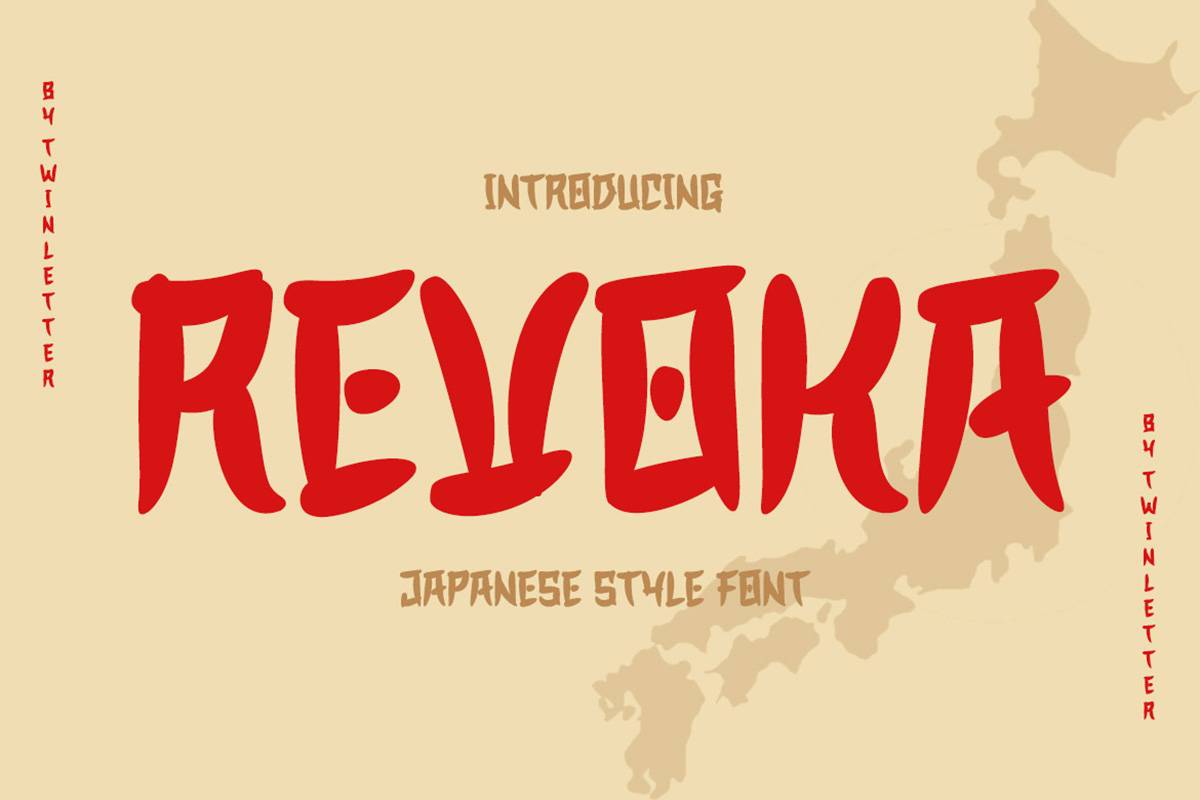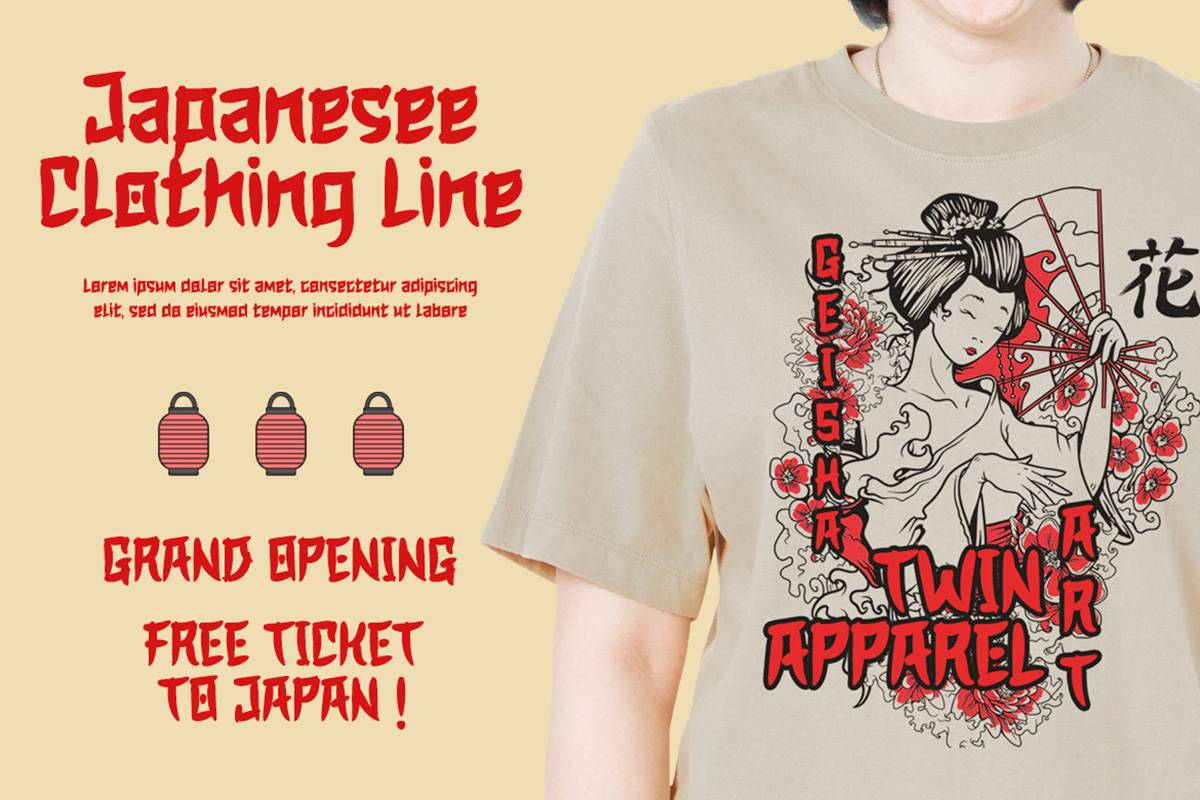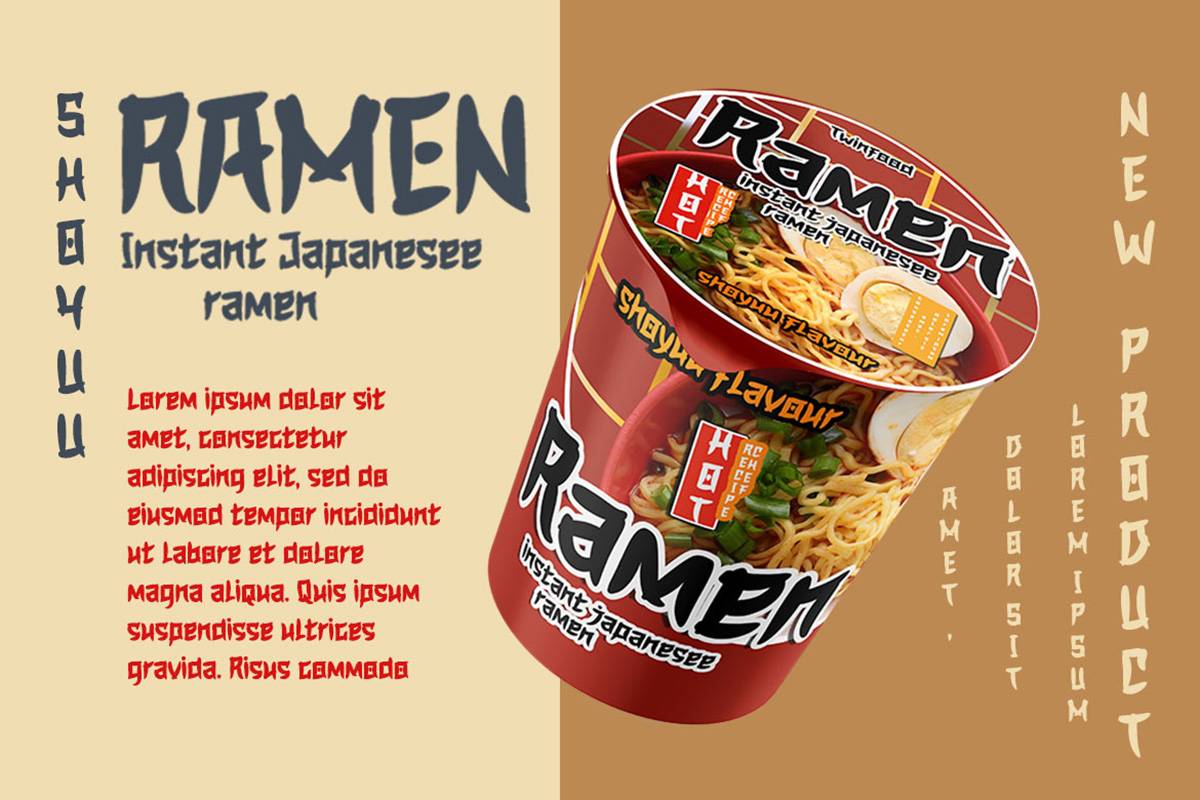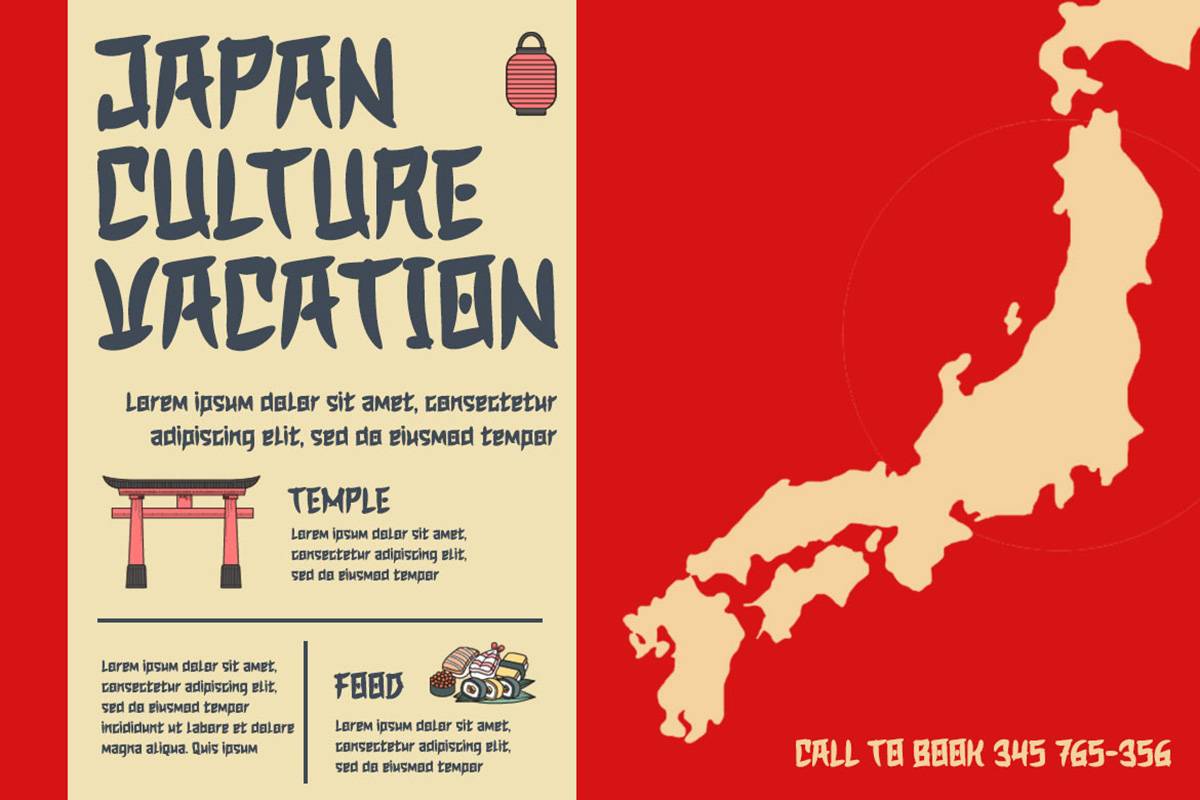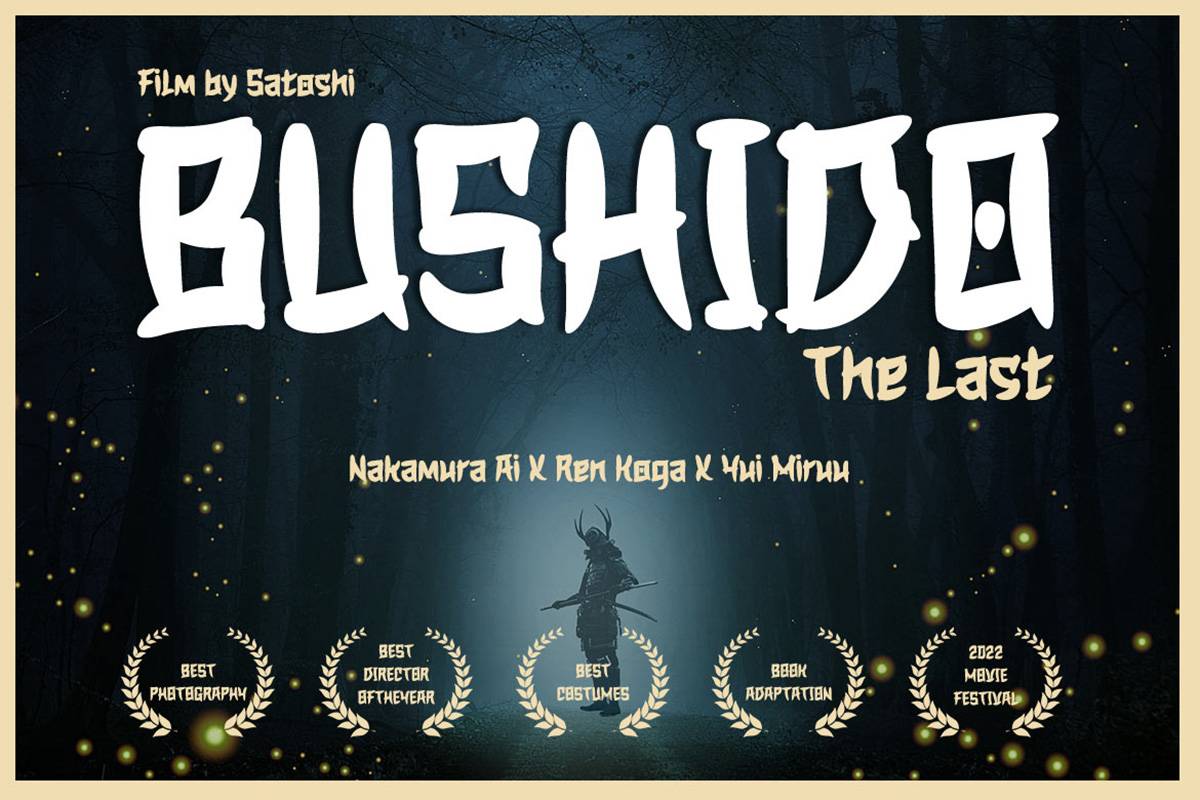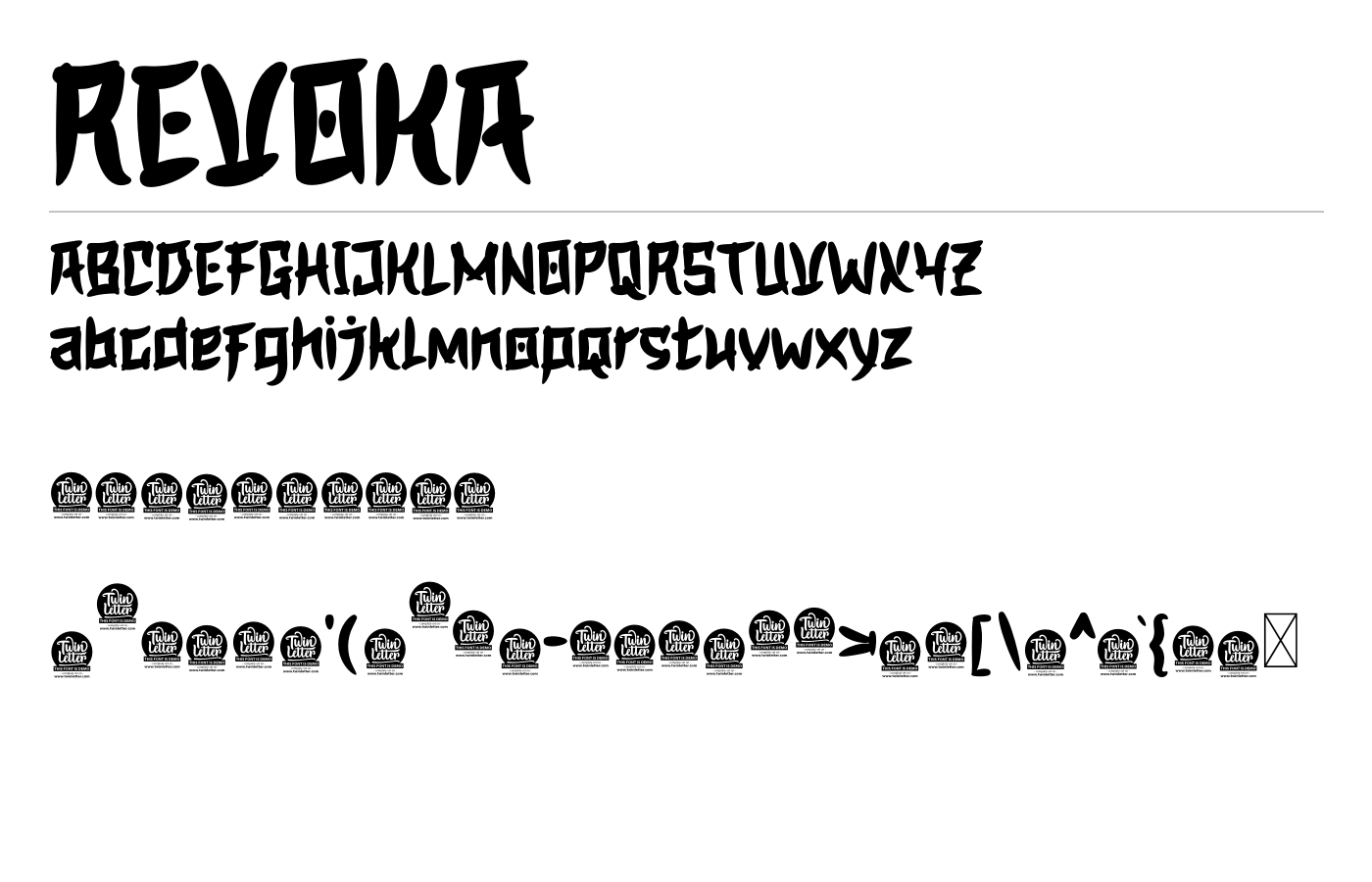
Revoka is a bold, playful handwritten font with a distinctive brushstroke style that combines thick and uneven strokes for a lively, organic feel. Its unique letterforms, featuring quirky shapes and a casual, artistic vibe, make it ideal for creative branding, posters, and headlines where a fun, energetic personality is desired. This font works great for projects seeking an eye-catching, informal look that stands out with a handcrafted touch.
Revoka Font
About Revoka Font